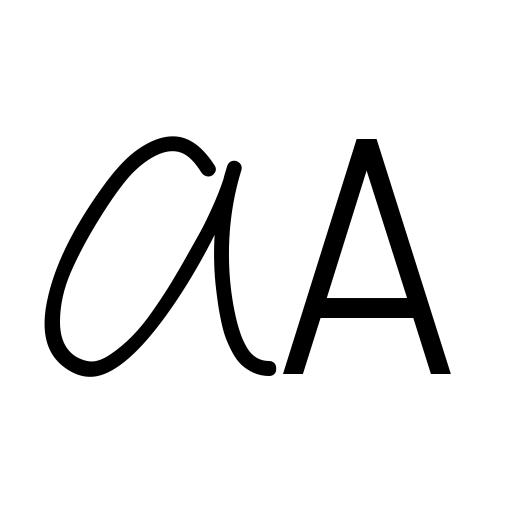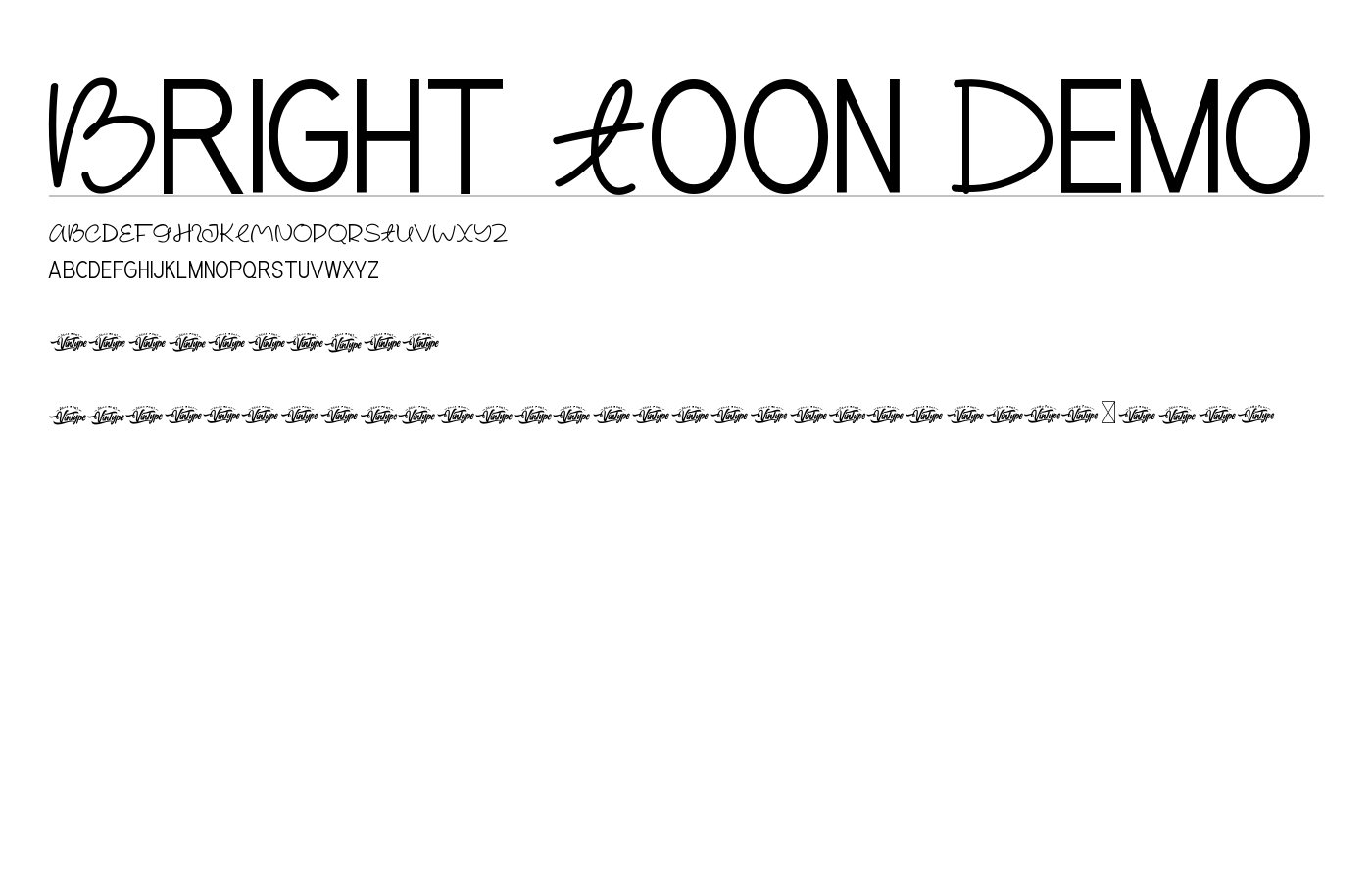
Bright Toon Demo is a playful sans serif font with a light weight and tall, narrow letterforms that give it a quirky, handwritten charm. Its uneven strokes and unique character shapes create an informal, fun vibe, perfect for creative projects, children's books, or casual branding that wants to feel approachable and lively. This font works well in headlines and logos where a cheerful and distinctive personality is desired.
Bright Toon Demo Font
About Bright Toon Demo Font